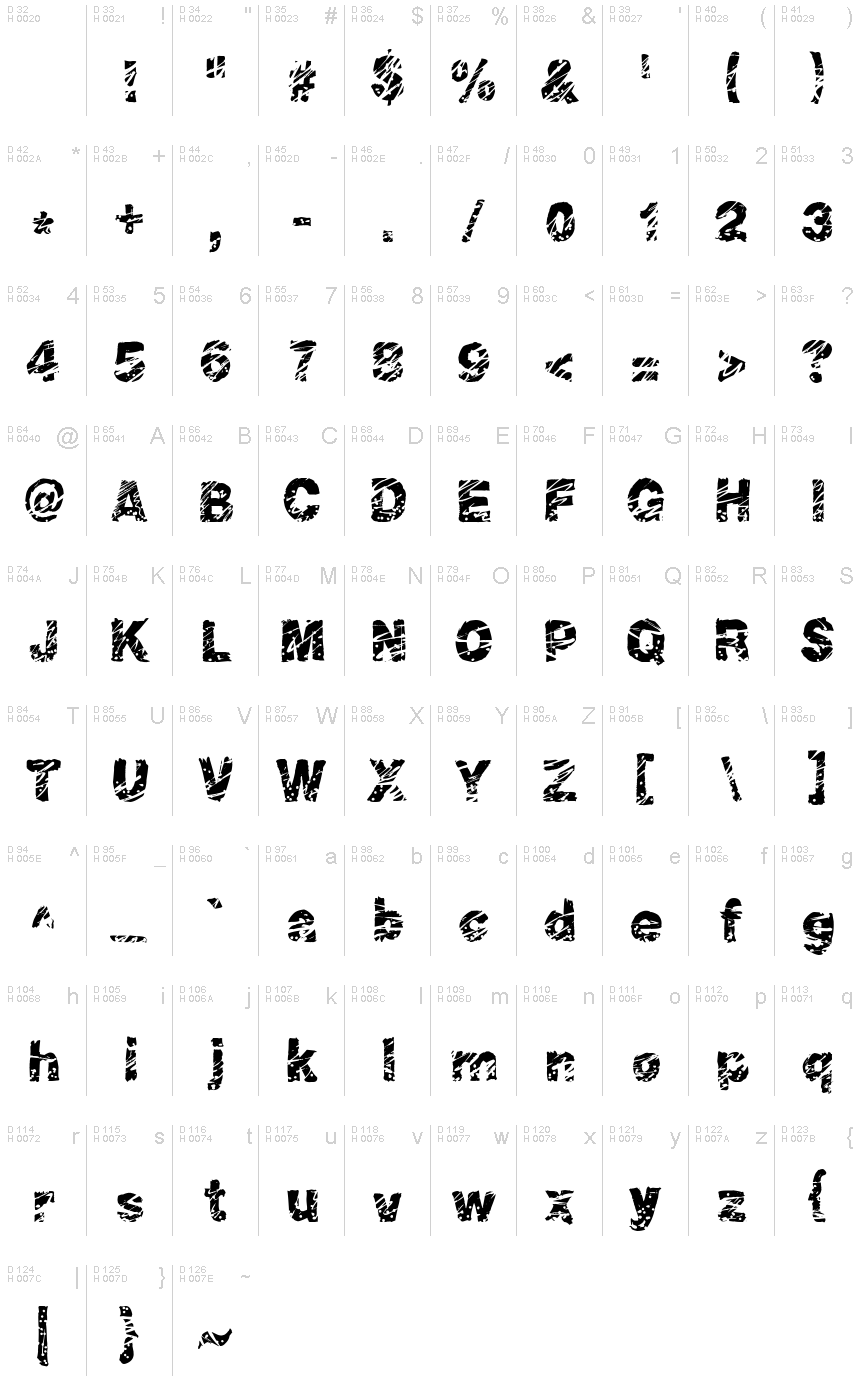
Peroxide
Peroxide is a bold, distorted display font that commands attention with its raw, gritty aesthetic. Designed by Max Infeld of Xerographer Fonts, this font embodies a sense of raw energy and unconventionality. The irregular, fragmented letterforms convey a sense of disruption and unpredictability, making it an ideal choice for headlines, posters, and other design applications where a strong visual impact is desired.
Peroxide's versatility extends beyond its captivating appearance, offering designers the ability to create striking, impactful compositions that evoke a sense of edginess and nonconformity.